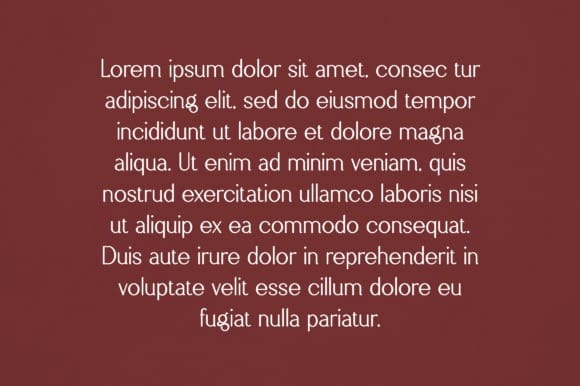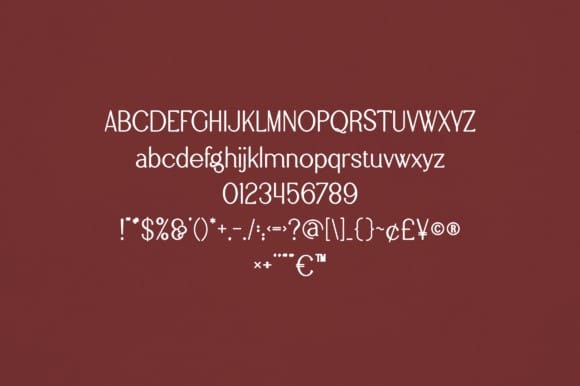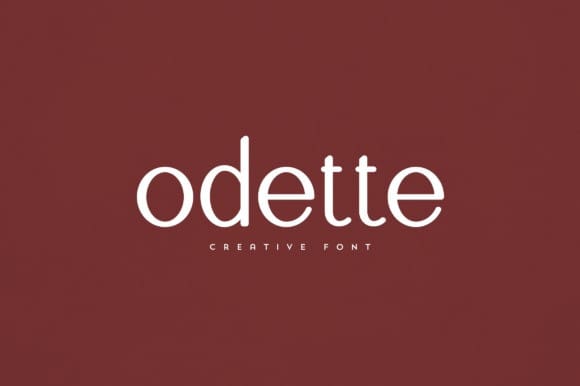
Odette Font
Odette Font is an elegant and versatile font that will make your typography truly unique! It will enchant every logo, branding, headline, or plain text!